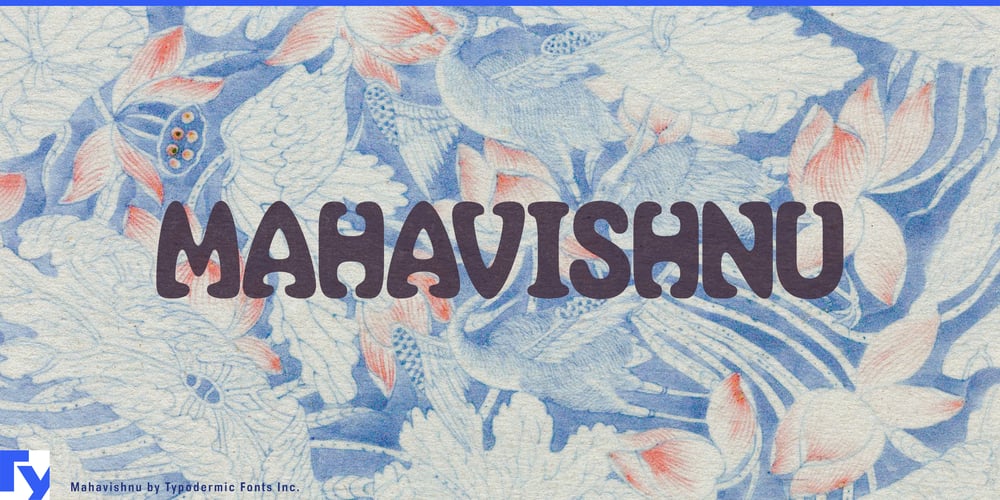
Mahavishnu Font Family was designed by Ray Larabie and published by Typodermic. Mahavishnu contains 1 styles and family package options. Immerse yourself in the opulent world of Mahavishnu, a typeface that orchestrates a symphony of style at the intersection of high fashion and spiritual luxury. Born from the psychedelic album art of the legendary Mahavishnu Orchestra, this font family doesn’t just adorn text—it transforms it into a visual mantra of elegance and intrigue.Each character in Mahavishnu is a masterpiece of organic design, meticulously crafted to create a flowing interaction that captivates the eye and soothes the soul. The soft, delicate curves evoke the drape of fine silk, while the overall composition suggests the balanced asymmetry of haute couture. This is typography that doesn’t just speak—it whispers secrets of exclusivity and refinement. In the realm of luxury branding, Mahavishnu reigns supreme. Its unusual contours and letter interactions make it the perfect choice for high-end fashion houses, boutique hotels, and premium skincare lines. Imagine this typeface gracing the packaging of a limited-edition perfume, or adorning the signage of a chic Parisian boutique—Mahavishnu elevates every application with its unique blend of contemplative calm and avant-garde allure.But Mahavishnu’s versatility extends beyond the world of haute couture. Its organic feel breathes new life into yoga studio branding, wellness retreat materials, and mindfulness apps. The typeface’s ability to convey both tranquility and innovation makes it an ideal choice for luxury tech brands looking to balance cutting-edge products with a sense of inner peace. Mahavishnu speaks the language of global luxury fluently. Its extensive character set supports a wide array of Latin-based European writing systems, ensuring your message of elegance and sophistication resonates from the fashion weeks of Milan to the wellness retreats of Bali. Whether you’re crafting copy in French or designing headlines in Swedish, Mahavishnu maintains its allure across linguistic boundaries.Don’t just design—transcend. Let Mahavishnu be the voice that elevates your brand above the mundane, the typeface that turns every word into a statement of luxury and mindfulness. Embrace the harmony of form and function. Add Mahavishnu to your design palette today and watch as it transforms your creations from mere communications into visual symphonies of style and substance.